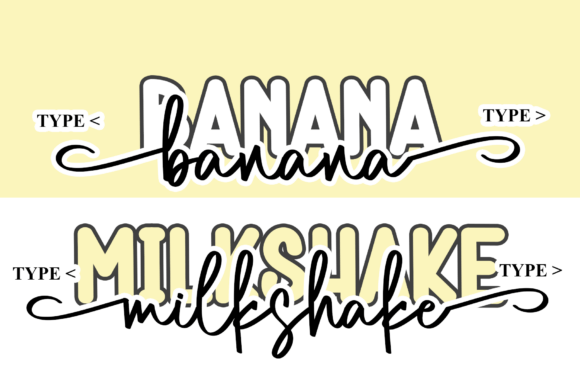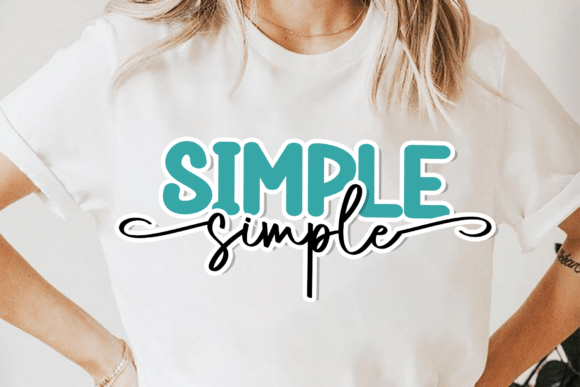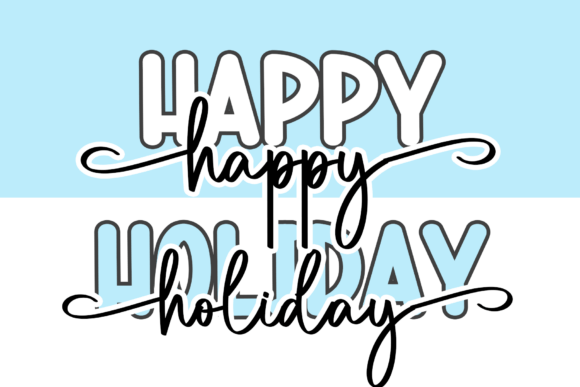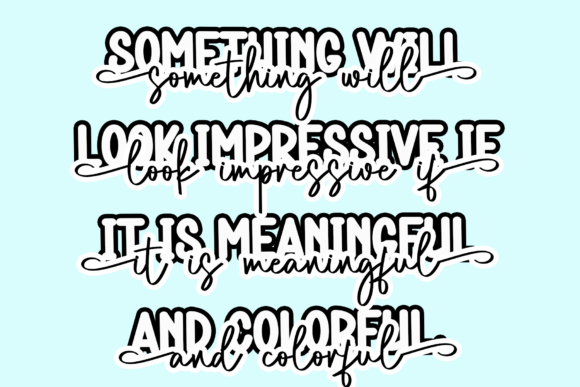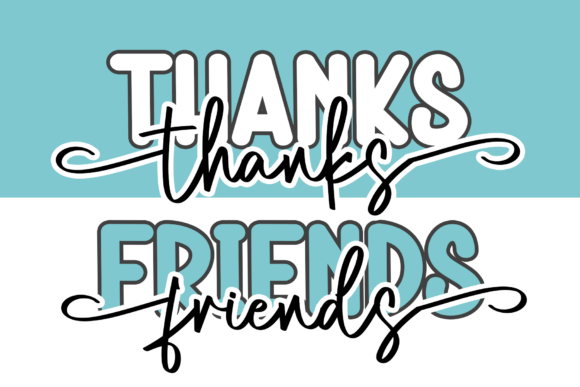
Where Creativity Meets Whimsy: The Banana Milkshake Font
Do you remember that moment when you were brainstorming ideas for a special project, and the perfect font suddenly popped into your mind? It’s a feeling that’s hard to describe, but it’s a mix of excitement, inspiration, and a dash of creativity. For many designers, that moment is what drives them to create something truly unique and memorable.
Enter the Banana Milkshake Font, a charming and delicate duo font that’s sure to bring a touch of romance to your next project. Whether you’re designing a greeting card, a wedding invitation, or a headline that screams “love at first sight,” this font is the perfect companion. With its PUA encoding, you’ll have easy access to special characters and decorative elements that will make your design truly special.
Banana Milkshake Font Key Features
- Font Family: Banana Milkshake is a unique, handwritten font designed to evoke the feeling of a creamy milkshake.
- Unique Characteristics: Features a playful, cursive script with irregular letterforms, making it perfect for adding a touch of whimsy to designs.
Designer Review: Banana Milkshake Font
The Banana Milkshake Font is a unique, playful font that’s sure to grab attention. I love how it’s been designed to mimic the texture of a milkshake, with subtle swashes and flourishes that add to its whimsical charm. ✨ The font’s irregularities and imperfections make it feel more organic and hand-drawn, which is perfect for adding a touch of personality to your designs.
One of the standout features of the Banana Milkshake Font is its versatility. It can be used for a wide range of projects, from food and drink labels to advertisements and marketing materials. ✨ The font’s fun and carefree vibe makes it perfect for brands that want to convey a sense of playfulness and approachability.
- ⚠️ Limited legibility at small font sizes: The font’s intricate details and swashes can make it difficult to read at very small sizes.
- ⚠️ May not be suitable for formal or professional designs: The font’s playful, whimsical nature may not be suitable for more formal or professional projects.
- ⚠️ May require additional styling: The font’s texture and swashes can make it difficult to style and customize, requiring additional work to achieve the desired look.
Overall, the Banana Milkshake Font is a fun and versatile font that’s perfect for brands and designers who want to add a touch of personality and whimsy to their designs. While it may have some limitations, its unique texture and playful vibe make it a great choice for a wide range of projects.
Getting the Most Out of the Banana Milkshake Font
For the best results, use the Banana Milkshake font in bold or italic styles to add emphasis to your text.
Pair the font with bright and pastel colors to create a fun and playful atmosphere.
Use the font for headings and titles to add a touch of whimsy to your design.
The Banana Milkshake font is ideal for:
Children’s party invitations and decorations
Food and beverage branding
Summer-themed designs and graphics
Playful and creative projects